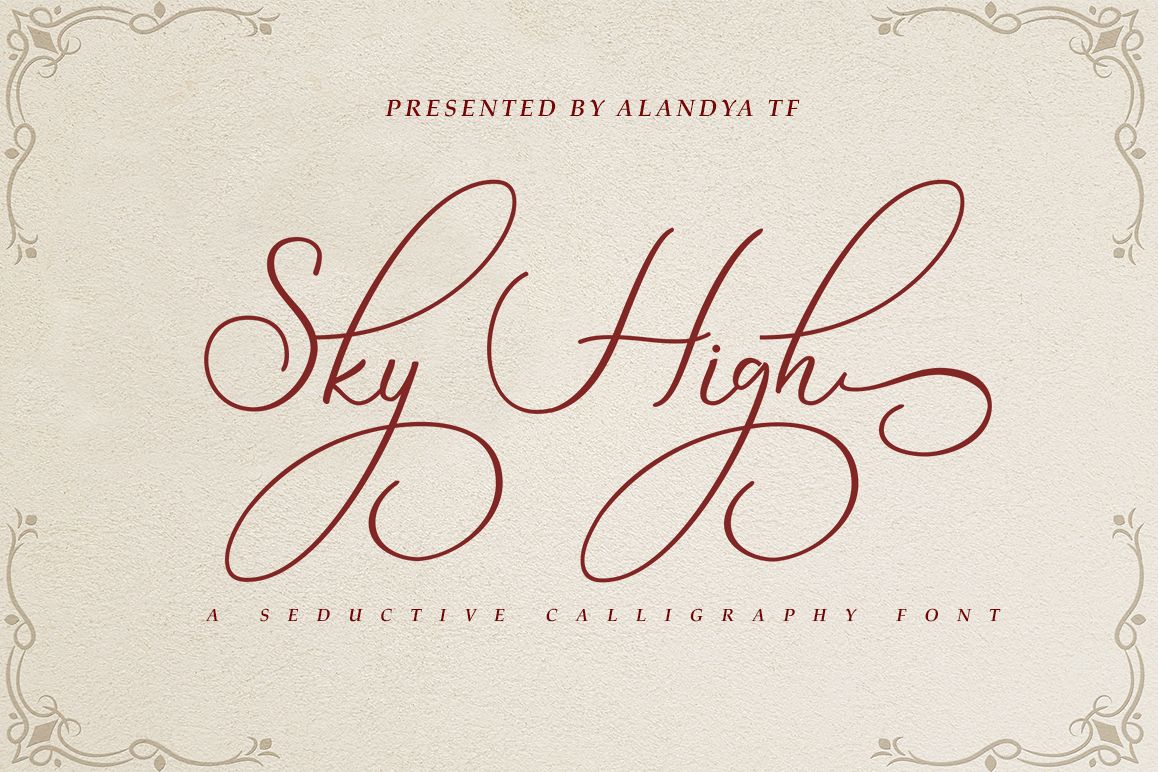
Sky High script
Sky High script is a beautiful classic calligraphic font to add your design to be sweet, elegant, and perfect.
Sky High script comes with more than 380+ glyphs per font file, to get richer in beautifying your design.
This font will be appropriate for logo project, wedding invitation card, branding, home design, product packaging, quotation, logo, shirt, book cover, business card, greeting card and all other.